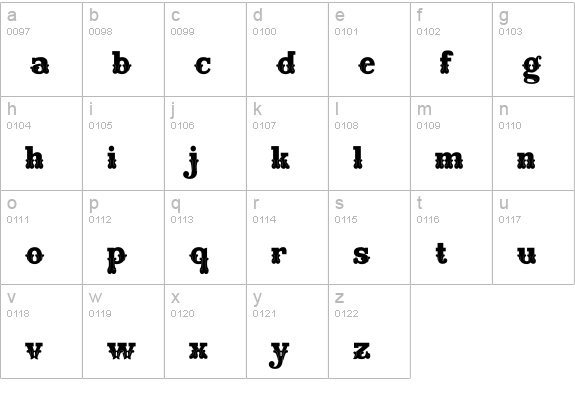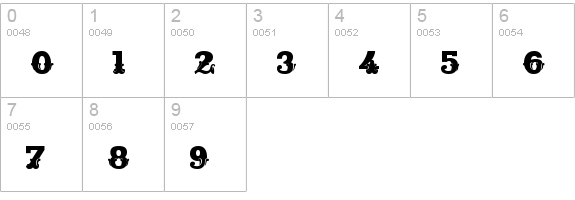
Main Strike Fill is a captivating and versatile font that is sure to make a lasting impression. With its bold and striking design, this font commands attention and adds a touch of sophistication to any project. Its unique fill style gives it a three-dimensional effect, making it truly stand out from the crowd. Whether you're designing a logo, creating eye-catching headlines, or crafting stylish print materials, Main Strike Fill is the perfect choice. Its clean lines and balanced proportions make it highly legible, ensuring that your message is delivered with clarity and impact. One of the best things about Main Strike Fill is that it is absolutely free. Yes, you read that right! This incredible font is freely available to download at FontsMarket.com. Now you can enhance your designs without having to worry about breaking the bank. With Main Strike Fill, the possibilities are endless. Let your creativity flow and explore the countless ways you can use this font to elevate your projects. From bold and modern to elegant and refined, this font can adapt to any style or concept, allowing you to bring your vision to life. So why wait? Discover the power of Main Strike Fill today and make your designs truly unforgettable. Download this amazing font for free at FontsMarket.com and unlock a world of possibilities. Don't miss out on this incredible opportunity to enhance your designs with Main Strike Fill.